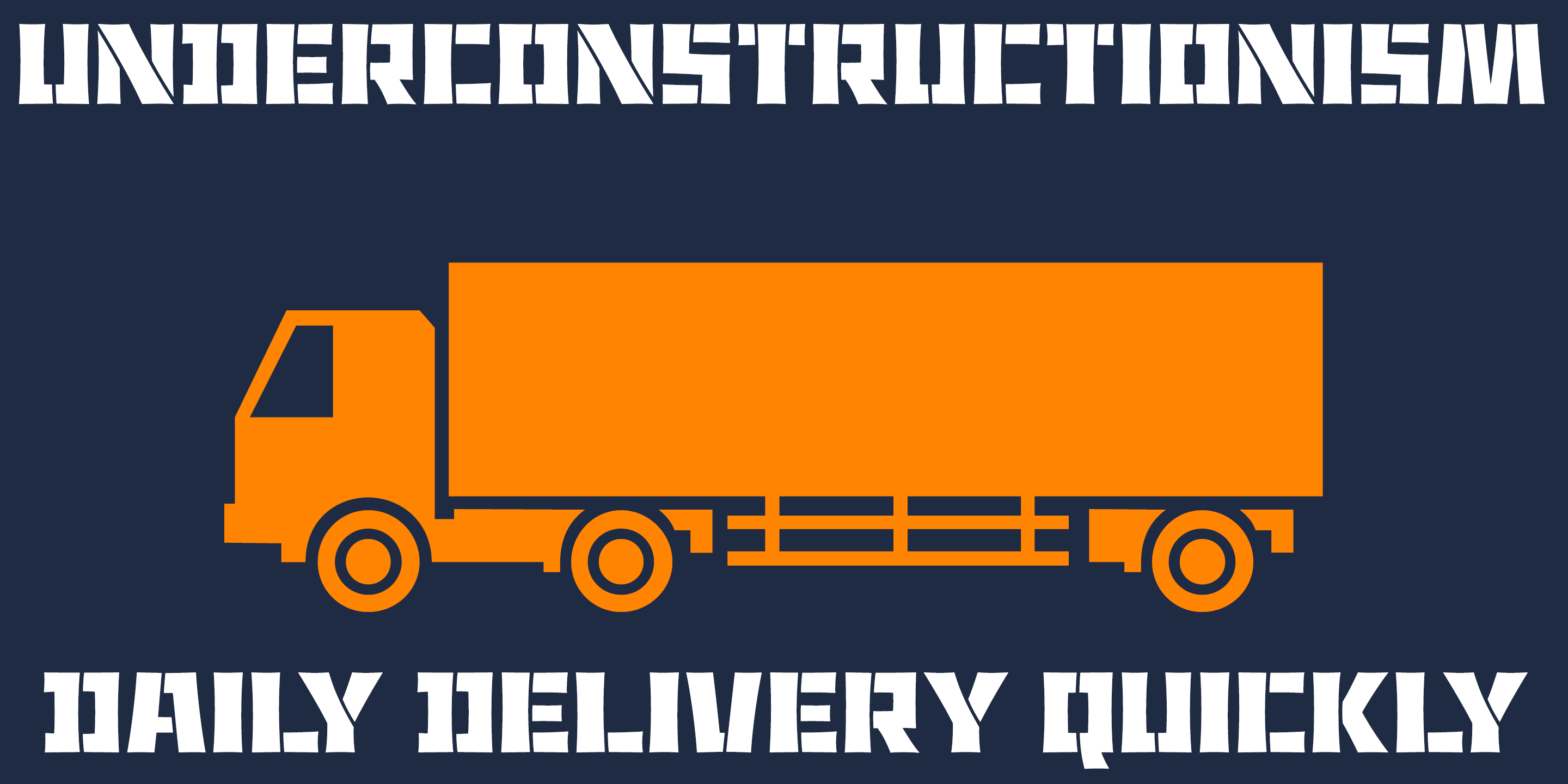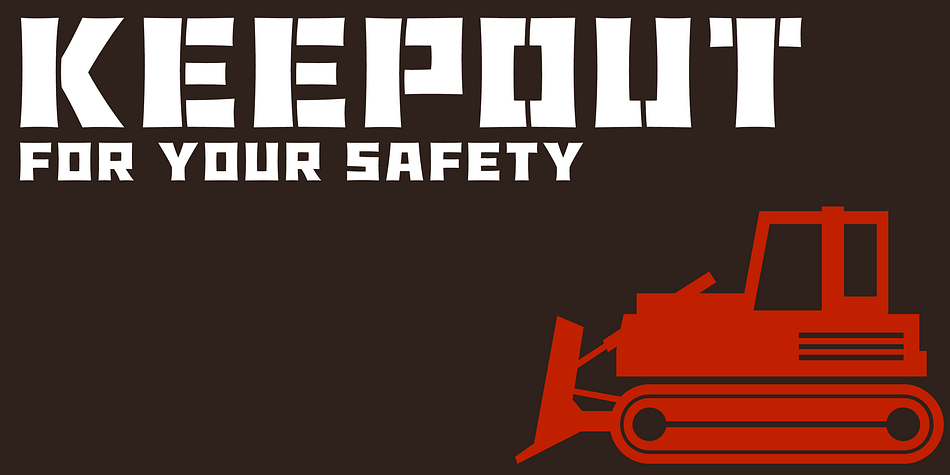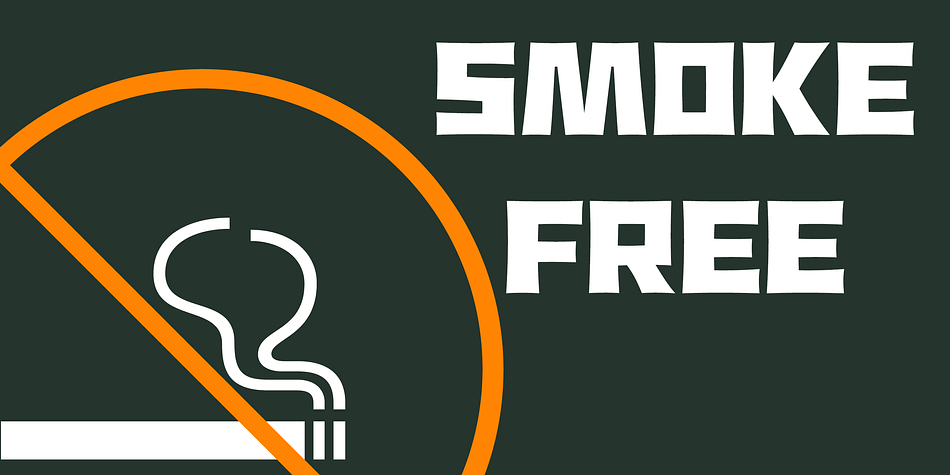
Underconstructionism is a display and stencil font family. This typeface has two styles and was published by Dharma Type.
This font based on and inspired by stencil signage in construction site. As you can see, heavy and rugged glyph is very eye-grabbing for headline and titling.